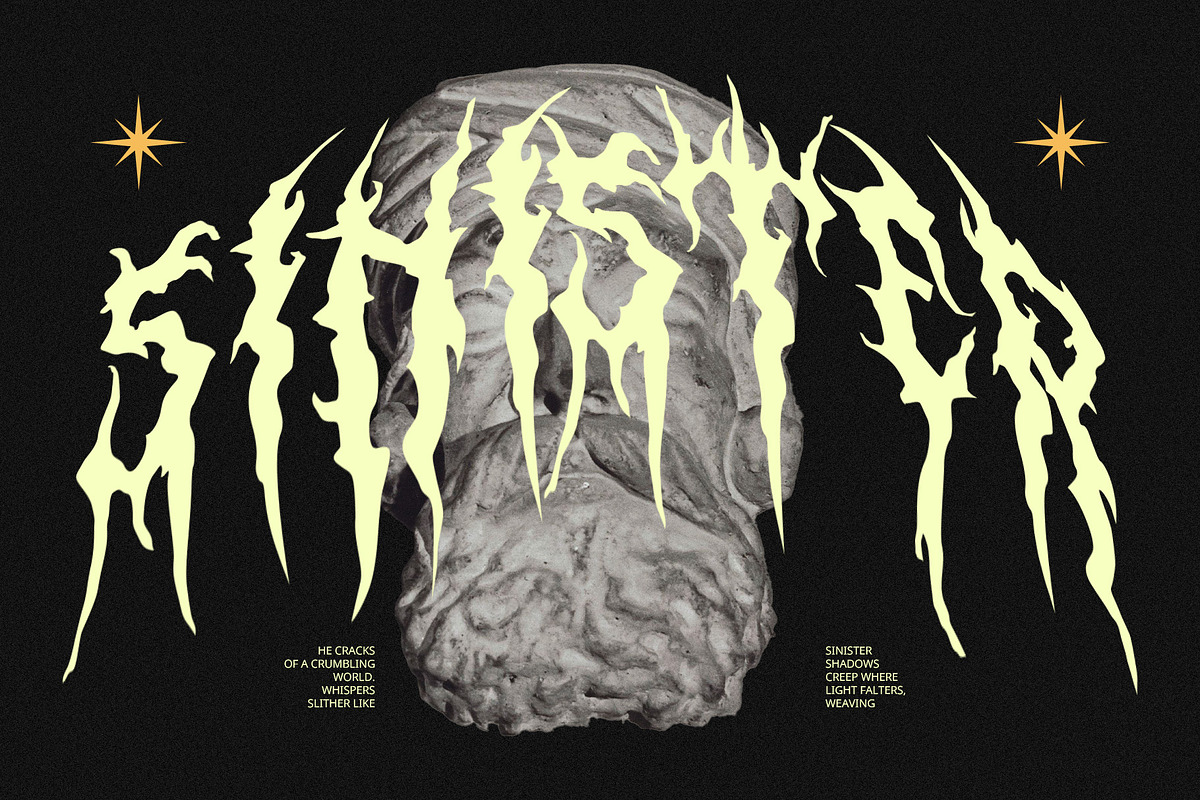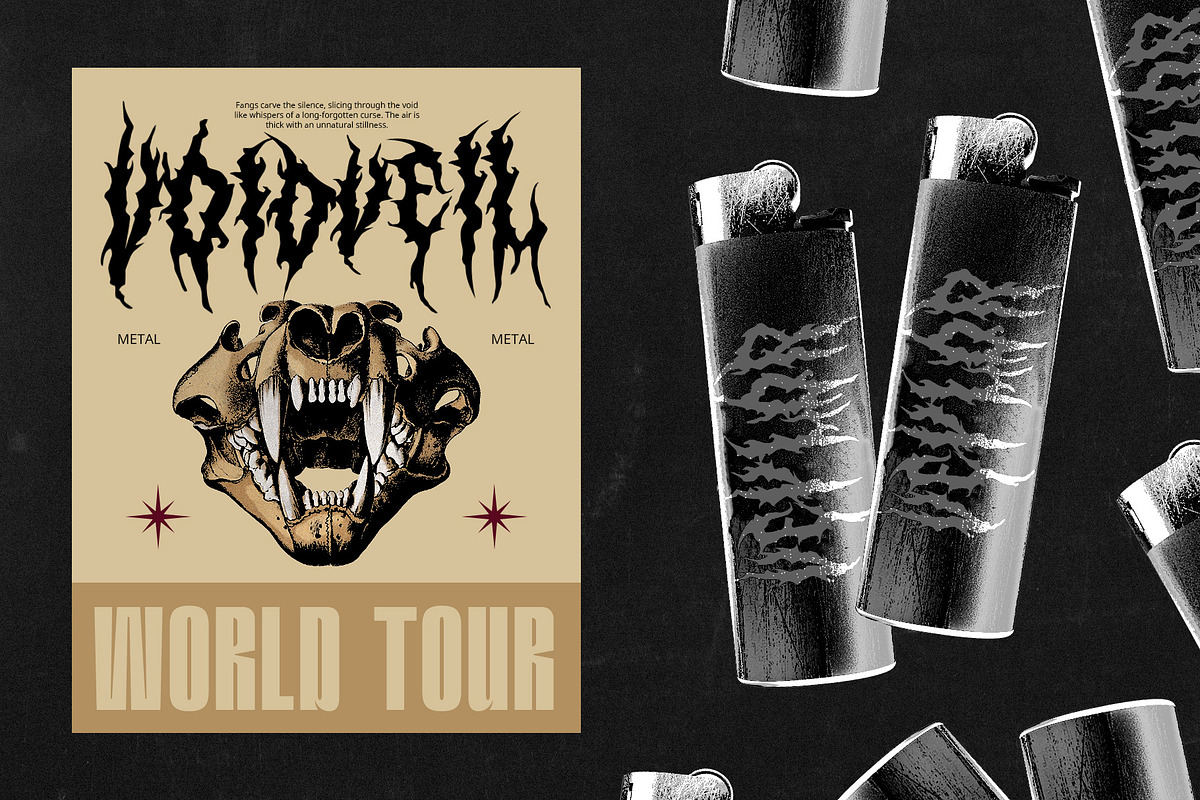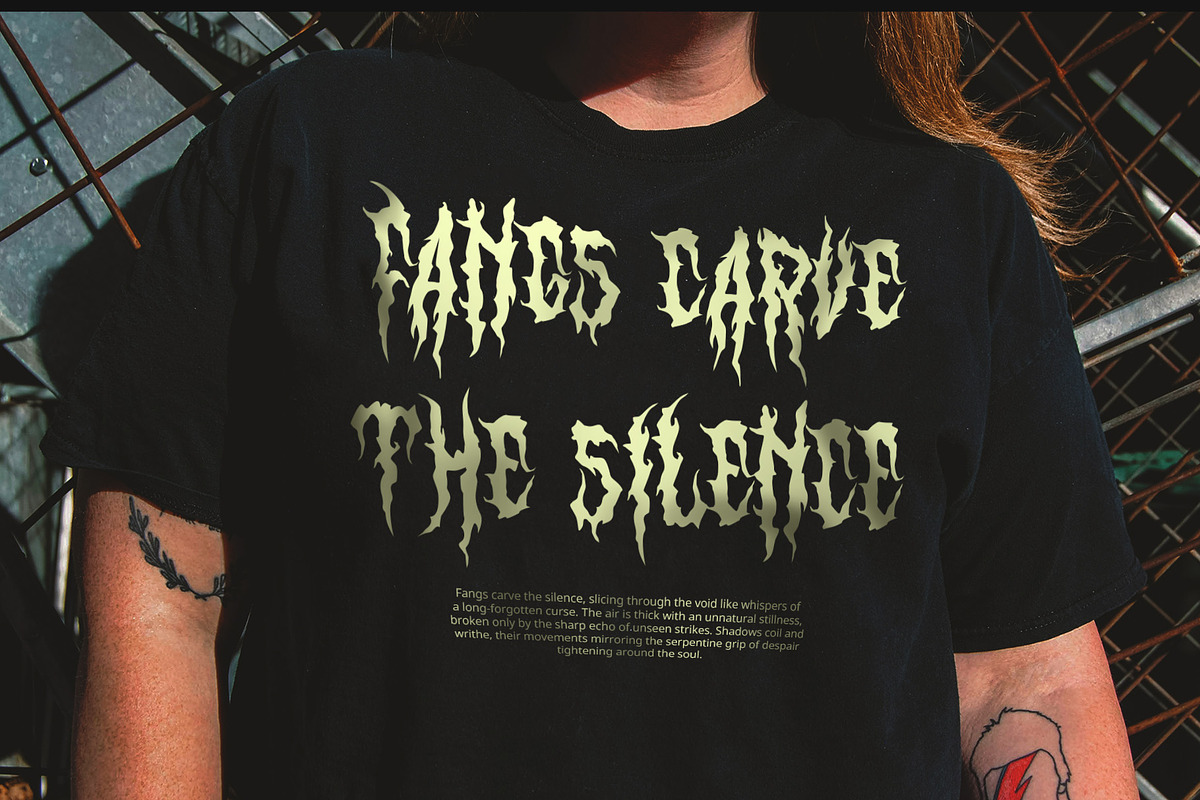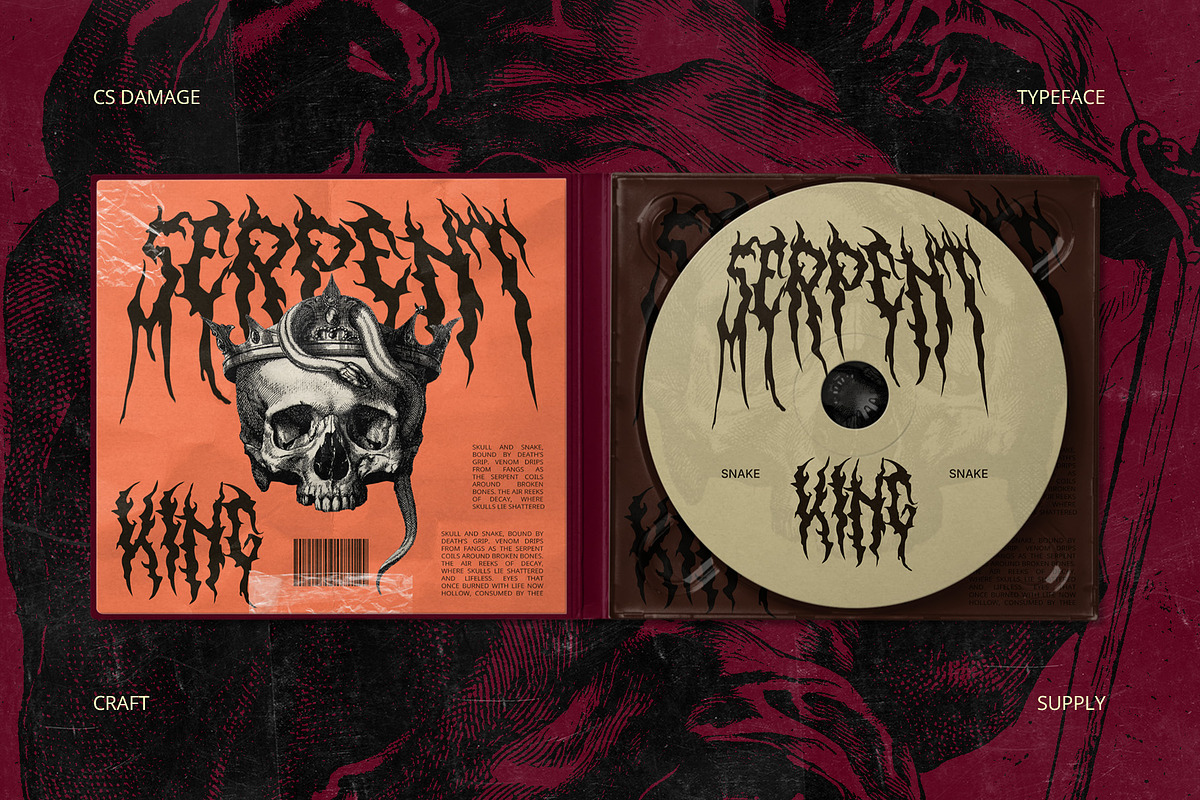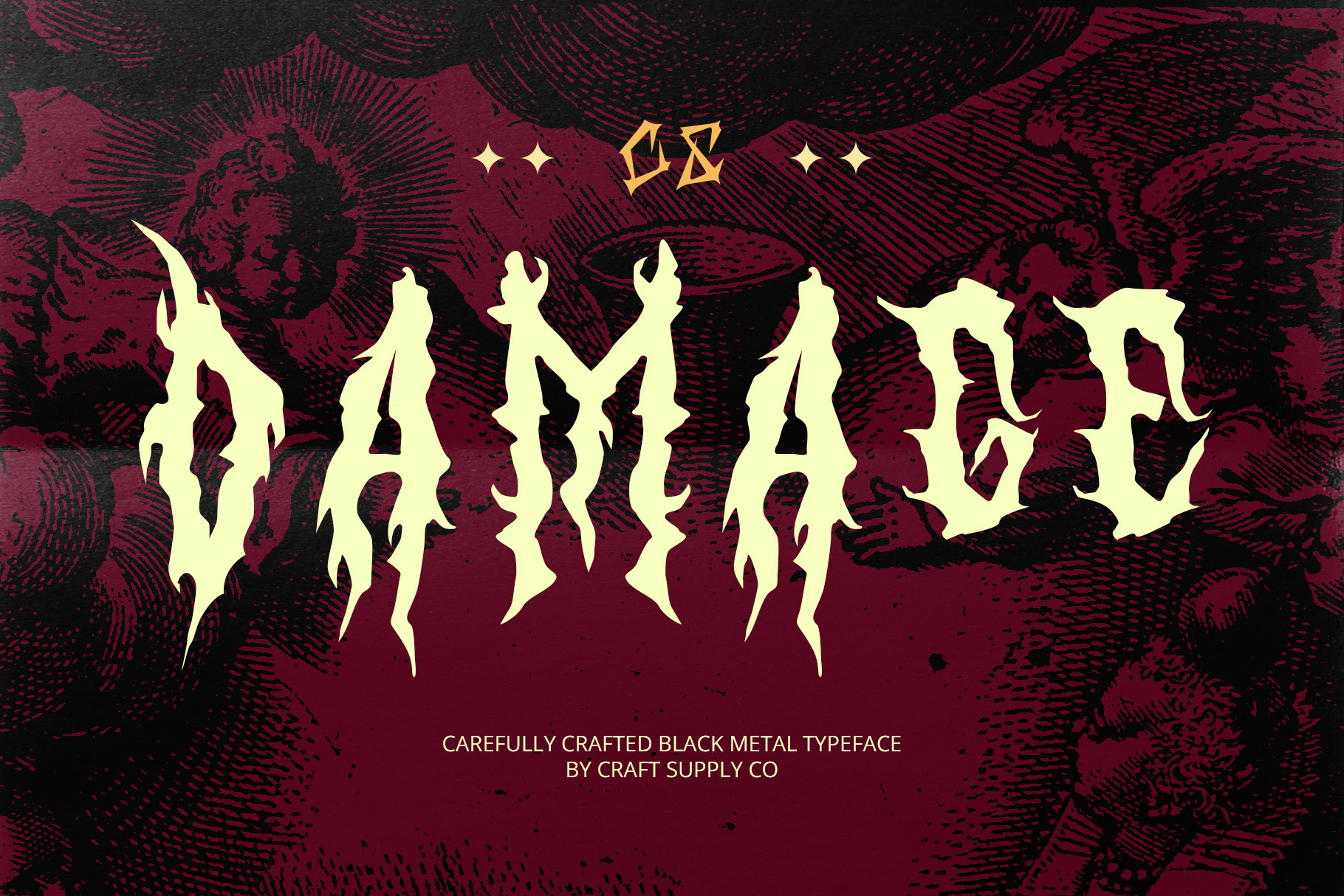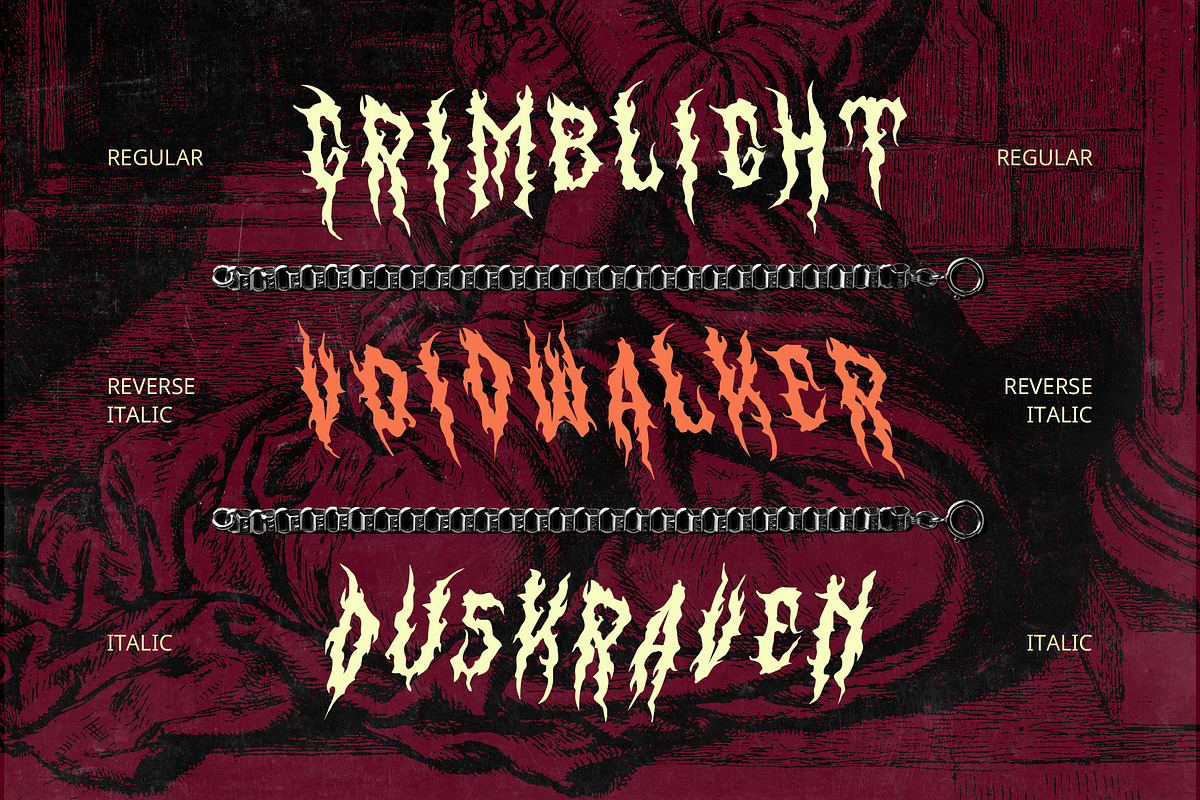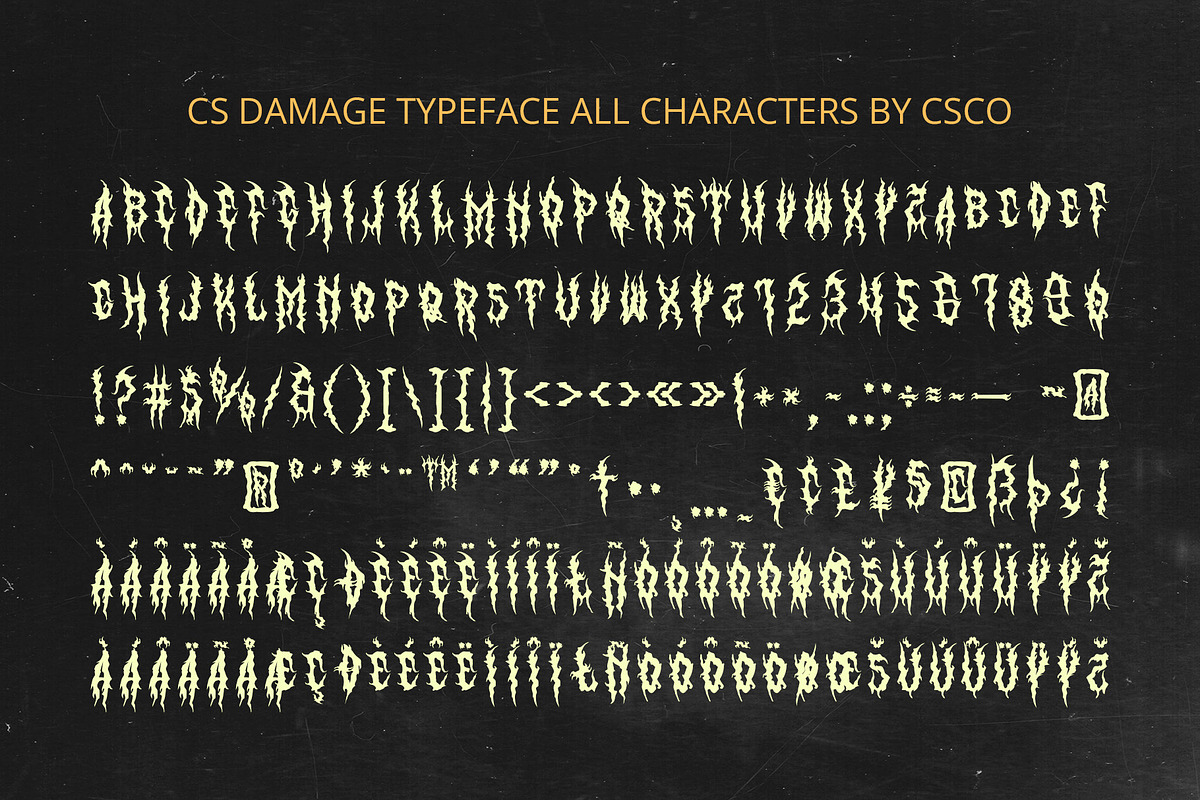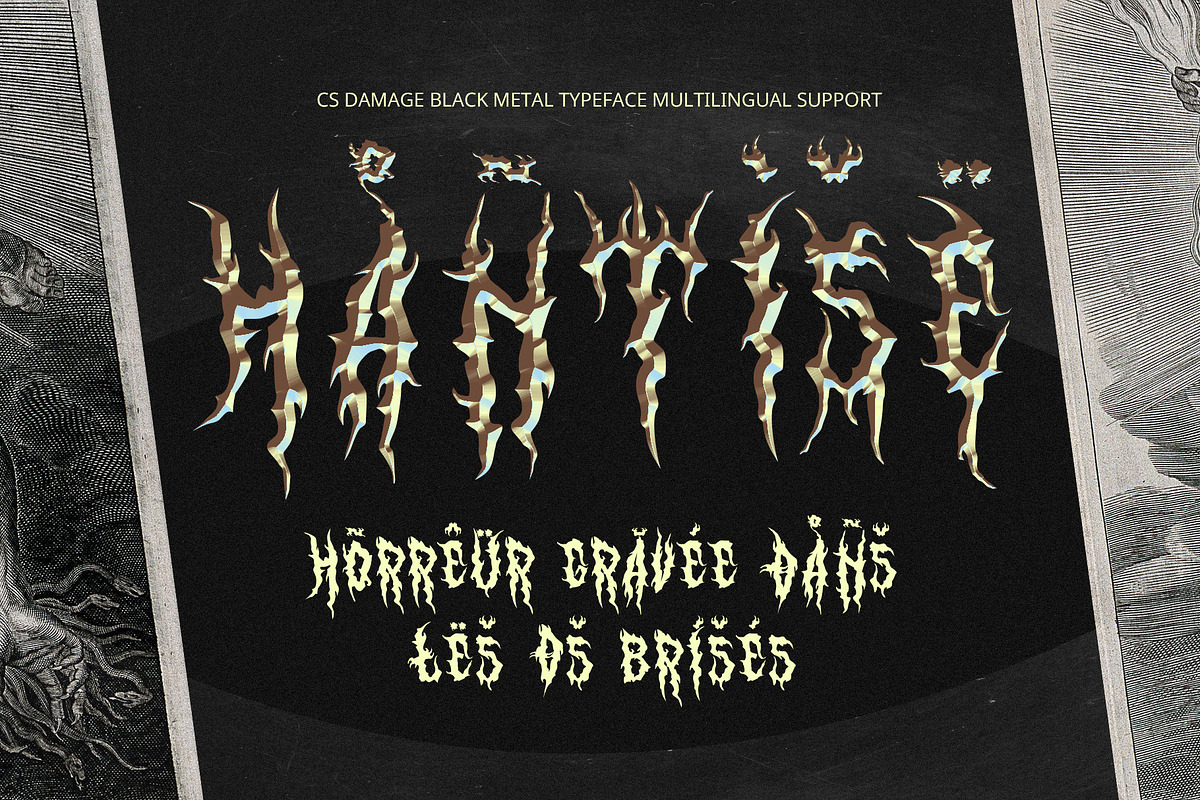
CS Damage – Black Metal Font
CS Damage – Black Metal Font: Bold Rebellion and Intensity
Black Metal Display Font with Aggressive Aesthetics CS Damage – Black Metal Font is a fierce display typeface that channels the intense, raw energy of the black metal music genre. With sharp, jagged, and fragmented letterforms, this font embodies the aggressive and rebellious spirit of underground culture.
Sharp and Jagged Letterforms for an Intense Look The unique letterforms of CS Damage are designed to grab attention. With their sharp angles and fragmented structures, the font exudes a sense of chaos and rebellion, perfectly suited for projects that demand a strong, aggressive aesthetic. The jagged edges and broken shapes give each character a sense of power and darkness, evoking the intense energy associated with the black metal genre.
Intricate Detailing for Depth and Impact Beyond its angular shapes, CS Damage Font is rich in intricate detailing. Every letterform carries small, ornamental flourishes that enhance the font’s complexity and depth. These detailed elements add a sense of craftsmanship to the design, making it more than just a rough font. It’s a piece of art in its own right, perfect for capturing the dark, mysterious, and extreme elements of black metal culture. This attention to detail ensures that the font is not only powerful but visually striking.
- CS Damage Regular
- CS Damage Italic
- CS Damage Reverse Italic